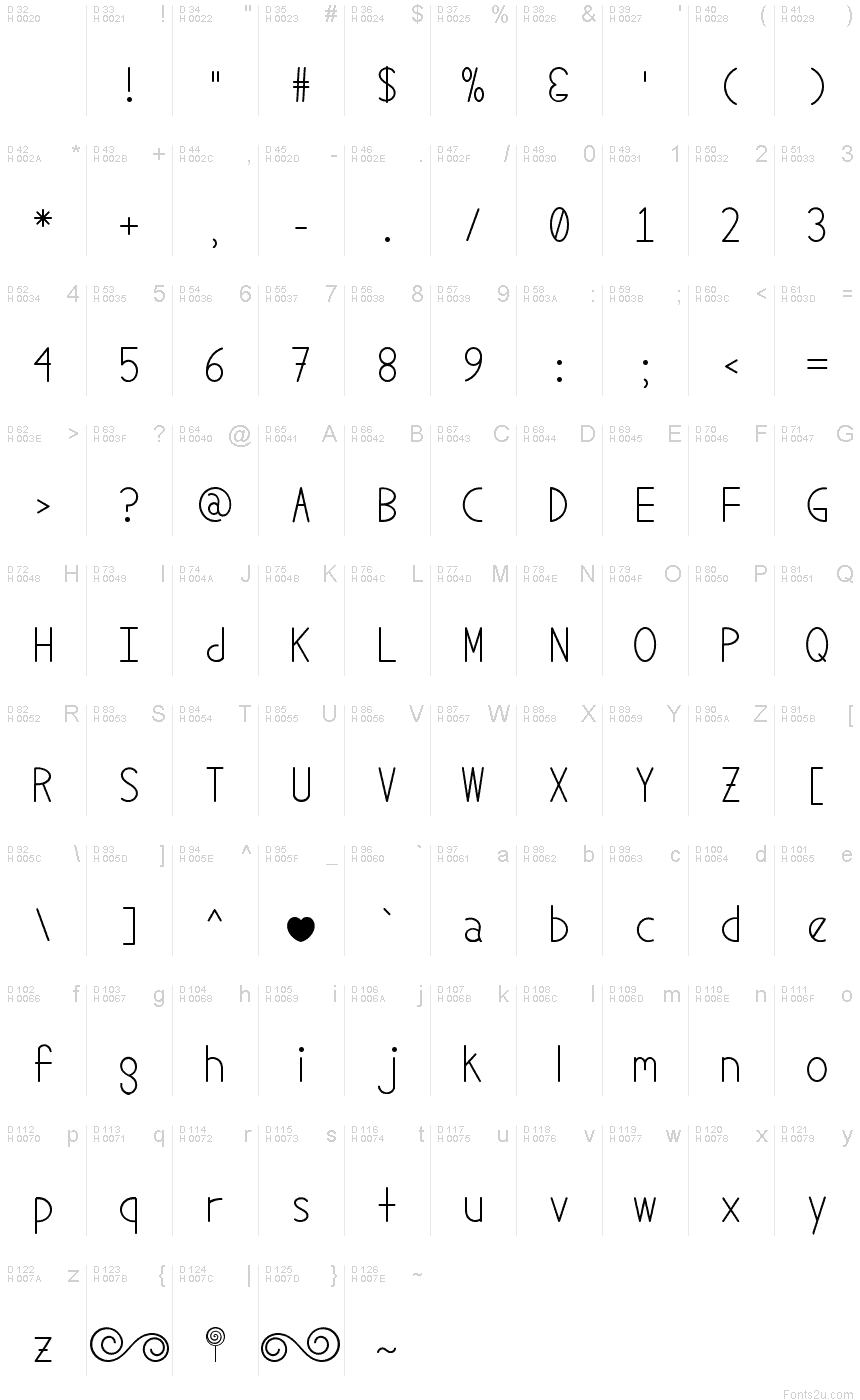
Sex & Candy by Misti Hammers of Misti's Fonts is a free retro display font with the long, lean elegance of 1970s fashion lettering. Its fine monoline strokes rise into dramatically tall forms, with gently rounded arches and open, airy curves offset by a few tighter joins. The lowercase shapes look especially fluid and poised.
As a stylish title treatment, it can give fashion editorials, album covers, and cocktail bar branding a period note that feels crisp rather than costume-like. Its mix of glamour and informality also suits sleek boutique packaging and event posters aimed at audiences drawn to mid-century pop culture.